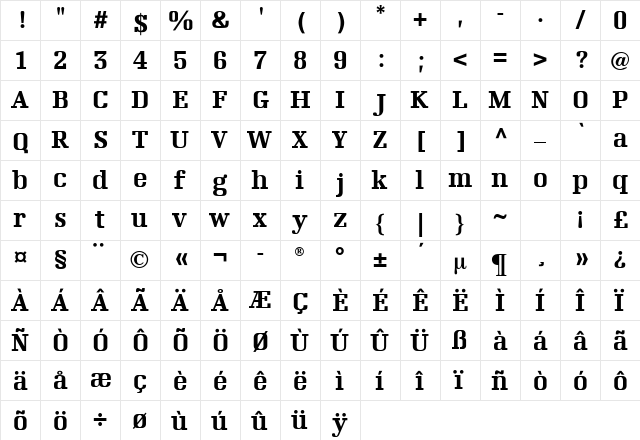
Napoleon Semi Bold Font Preview
Napoleon Semi Bold
Design Context for Napoleon Typeface
Napoleon takes a measured approach to typography — its balanced proportions and neutral character make it a reliable workhorse for both digital and print work. Its bold stroke weight gives it real presence on the page.